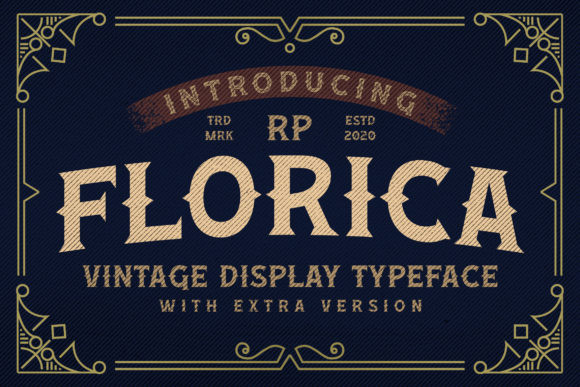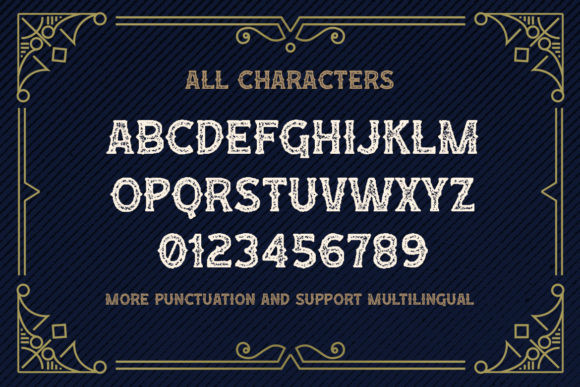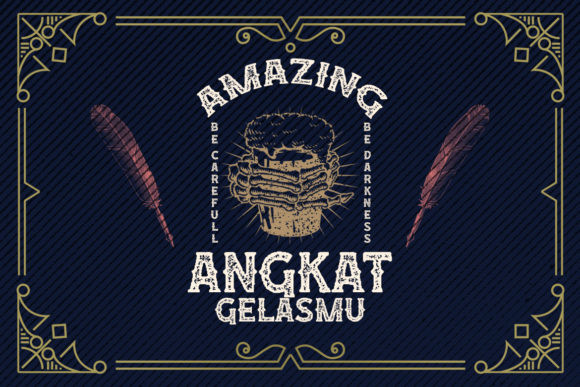
Florica Font
Florica is a vintage display font that was made by hand and inspired by classic posters. Florica comes with all caps, numerals, punctuations, and multilingual support. Perfect to use for Logotype, Letterhead, Poster, Apparel Design, Labels, and many more designs.